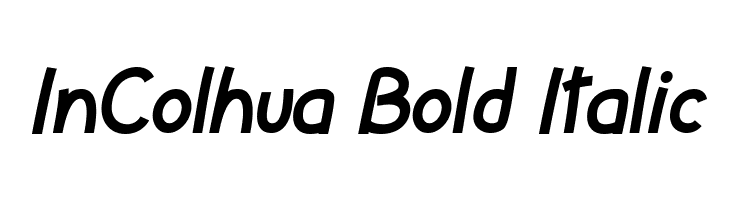
• InColhua Bold Italic caratteri
A bold, italicized font with a dynamic and modern style.
• InColhua Italic caratteri
A dynamic and flowing italic font with smooth curves and a modern style.
• InColhua Light caratteri
A playful, handwritten-style font with a casual and friendly appearance.
• InColhua Light caratteri
A playful and whimsical font with rounded, slightly irregular letterforms.
• InColhua Light Italic caratteri
A modern, light, and italicized font with a sleek and fluid style.
• Incompetent Landlord caratteri
• Incompetent Regular caratteri
A bold, 3D font with a metallic gradient effect and rounded edges.
• Inconsistent Print caratteri
• Inconsolata caratteri
A clean, monospaced font ideal for coding and technical documents.
• Inconsolata caratteri
A modern, monospaced font with excellent readability and uniform spacing.